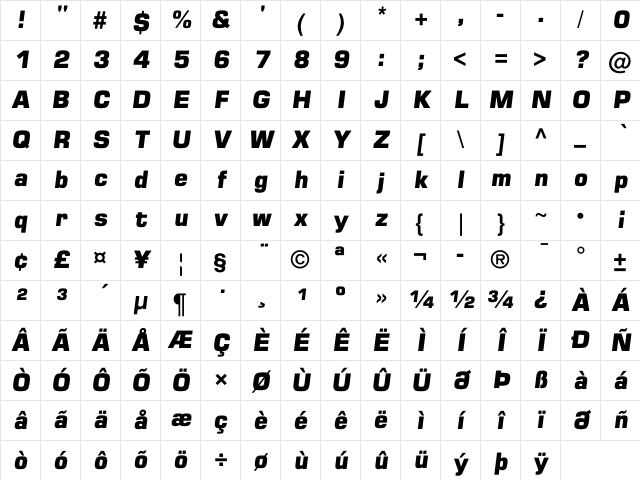
Complete LHF Antique Half Block Italic glyph index. Displaying only characters natively supported by LHF Antique Half Block Italic font.
LHF Antique Half Block wears its vintage influences proudly, with letterforms that recall mid-century signage, classic packaging, and nostalgia-driven design. The slanted form adds forward momentum and visual energy.
Font Pairing: Combine LHF Antique Half Block with a simple slab or neutral sans - period-accurate companions reinforce the vintage feel without competing for attention.
Pro Tip: Lean into LHF Antique Half Block's period character by pairing it with aged paper textures, muted colour palettes, and vintage illustration styles.